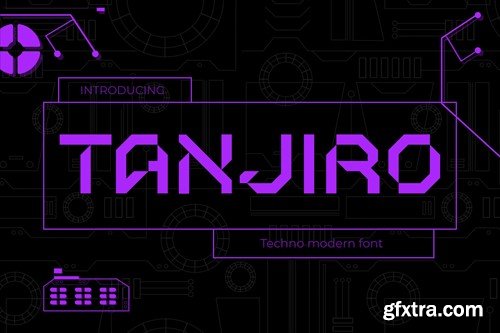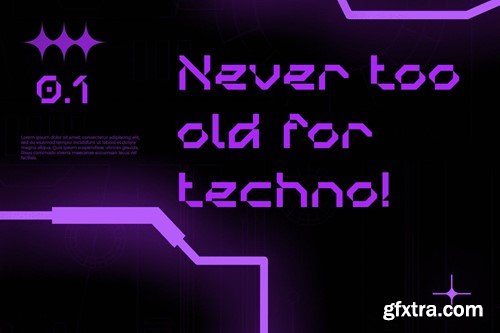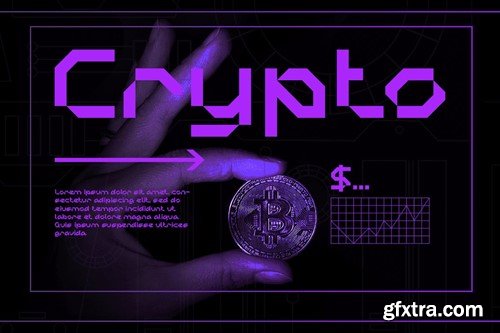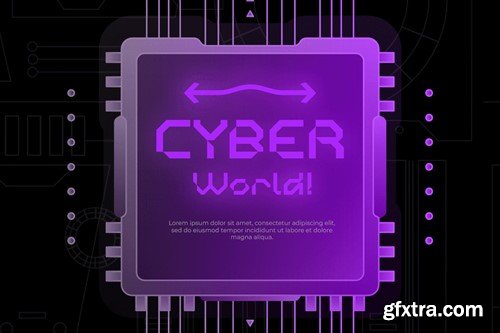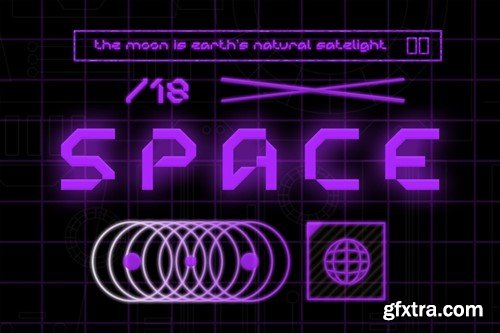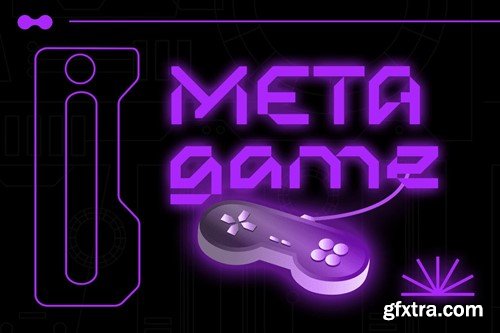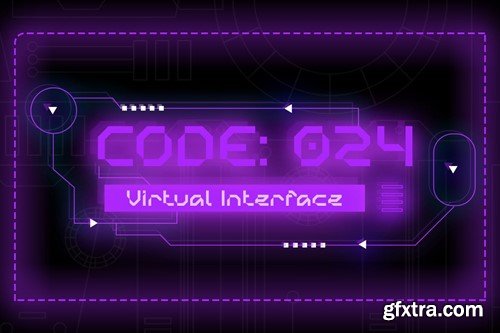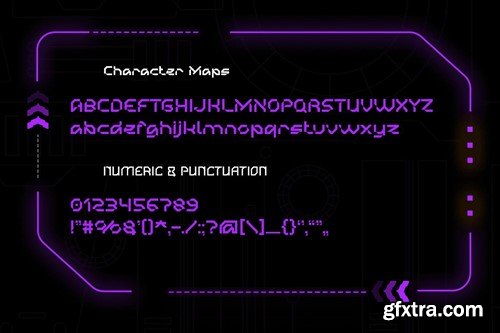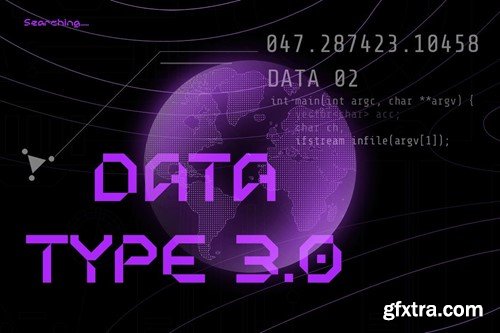
Tanjiro - 传统的现代未来主义字体 TVPR6RZ
Tanjiro - The Modern Futuristic Font TVPR6RZ
Tanjiro - The Modern Futuristic Font
Blast off into a world of futuristic design with Tanjiro, a typeface that embodies the sleek aesthetics of modern technology and the vast expanse of space. Inspired by cutting-edge tech's clean lines and geometric shapes and the awe-inspiring imagery of interstellar travel, Tanjiro delivers a unique blend of techno-futurism and contemporary style.
Carefully crafted to captivate and inspire, Tanjiro transcends mere words. It becomes a visual invitation to explore the unknown, perfect for igniting imaginations and adding a touch of cosmic cool to any project. Whether you're crafting logos that command attention, quotes that spark curiosity, or packaging that screams innovation, Tanjiro empowers your designs to reach for the stars.
• Basic Latin A-Z and A-z
• Numbers
• Punctuation